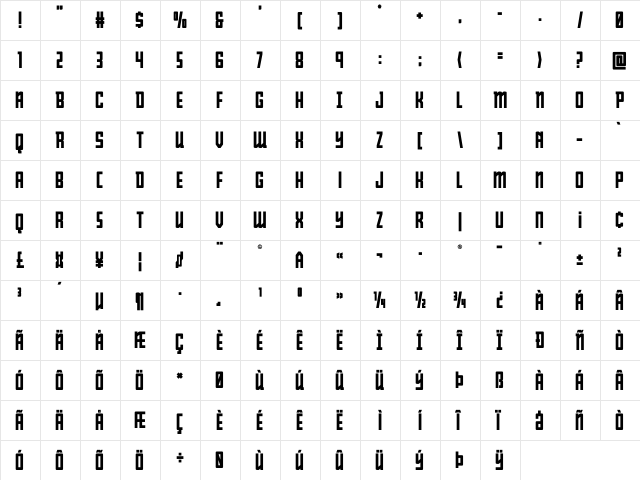
Young Patriot Semi-Bold Semi-Bold
Design Context for Young Patriot Semi-Bold Typeface
Young Patriot Semi-Bold takes a measured approach to typography — its balanced proportions and neutral character make it a reliable workhorse for both digital and print work. Its bold stroke weight gives it real presence on the page.